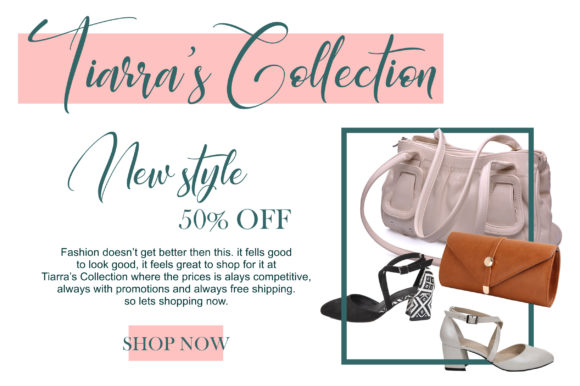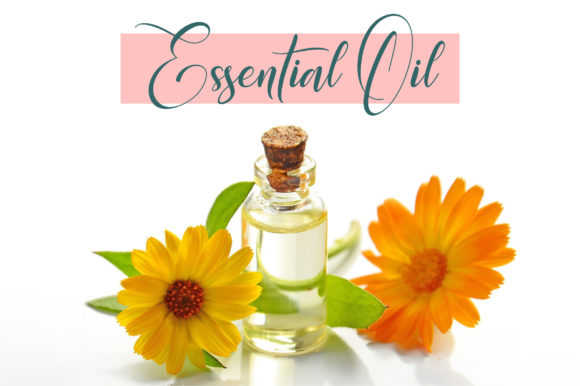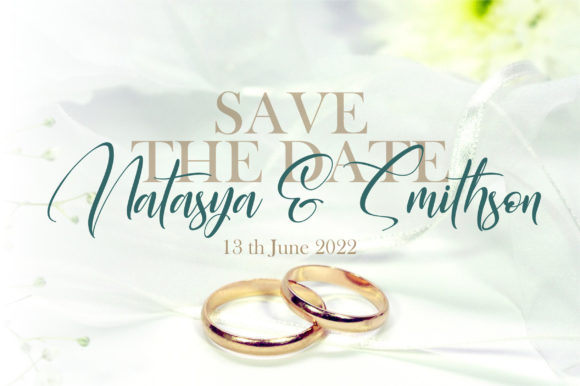
Introduction to Miss Karttiny Font
Miss Karttiny is a flowing handwritten font.
Every letter has been carefully crafted to give it a fresh and stylish look It’s perfect for logotypes, branding, magazines, website or blog headlines, packaging, quotes, invitation cards, greeting cards, business cards, and much more.
Key Features of Miss Karttiny Font
Why Choose Miss Karttiny Font?
Miss Karttiny Font offers exceptional quality and versatility, making it a valuable addition to your design toolkit. Whether you’re creating for personal projects or commercial use, Miss Karttiny Font delivers professional results.